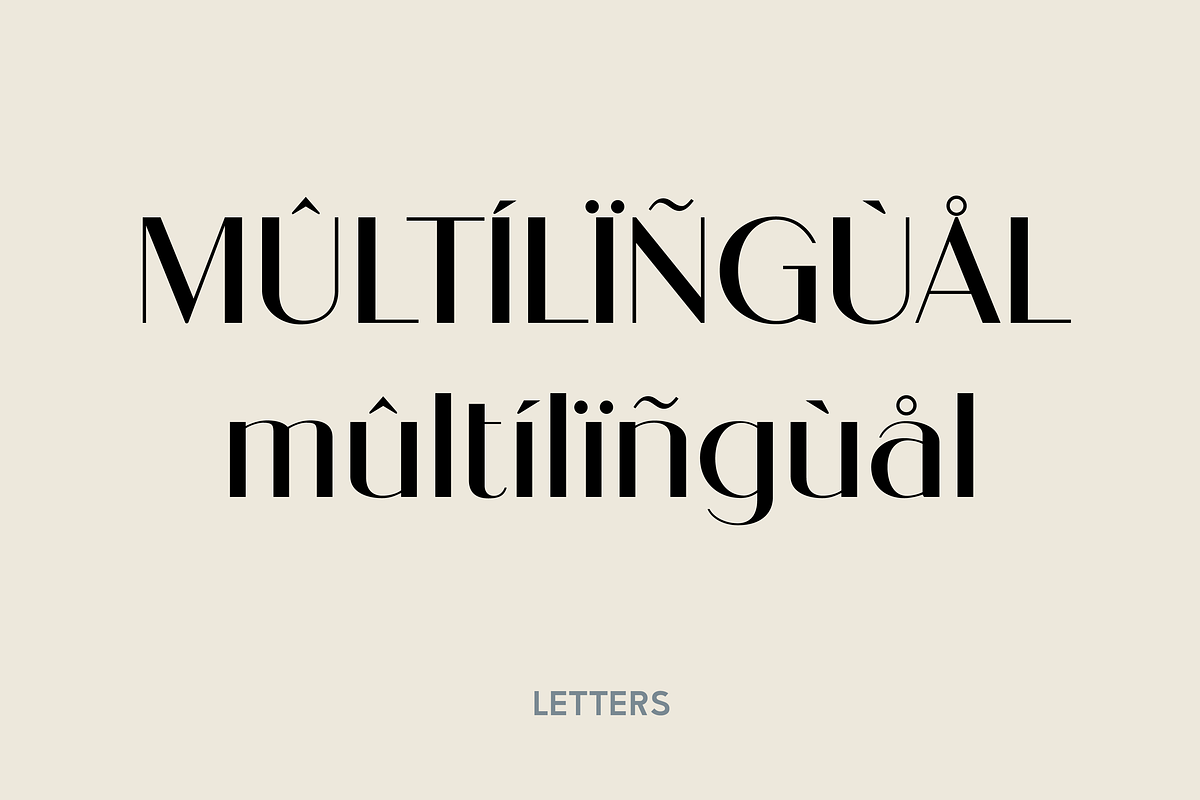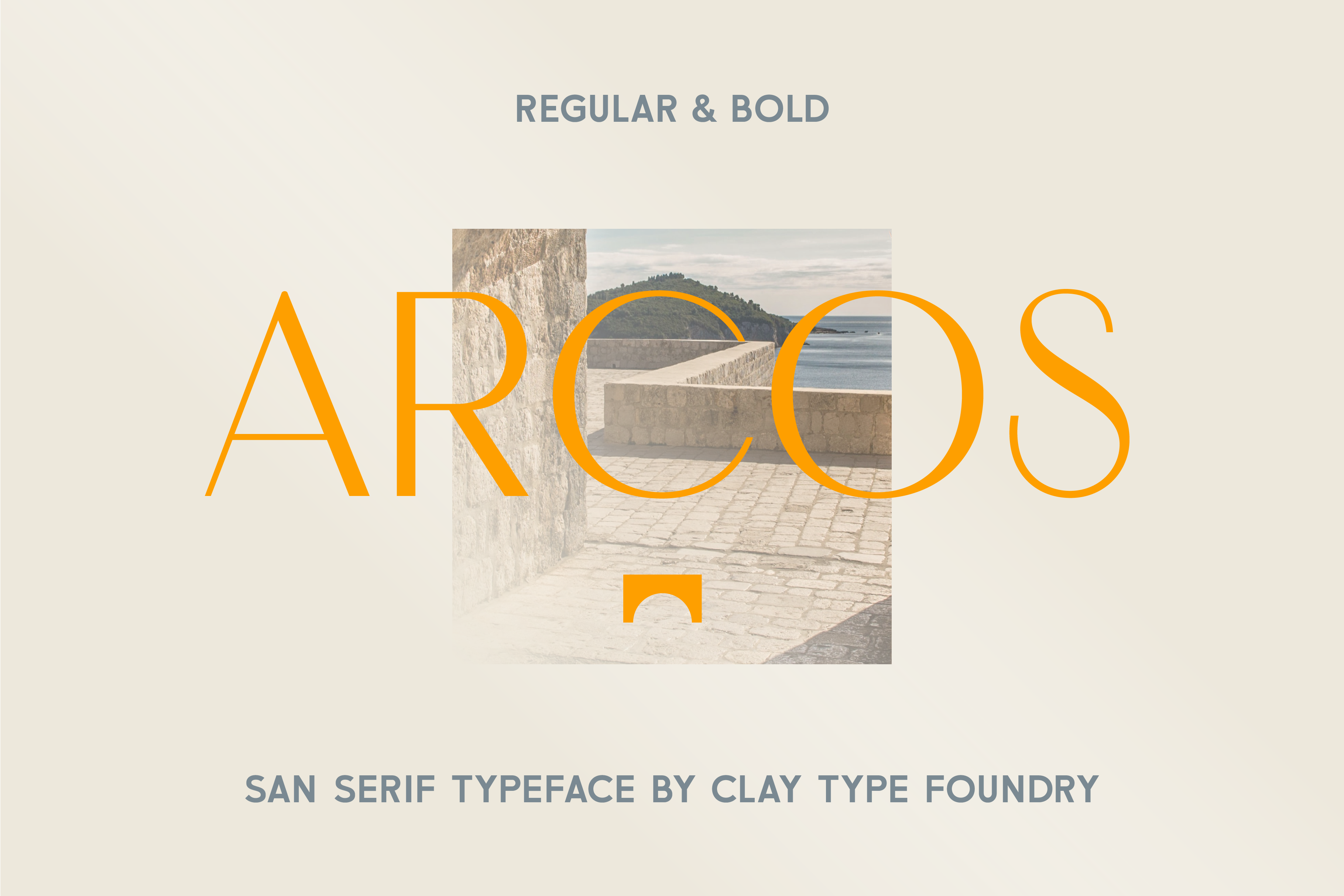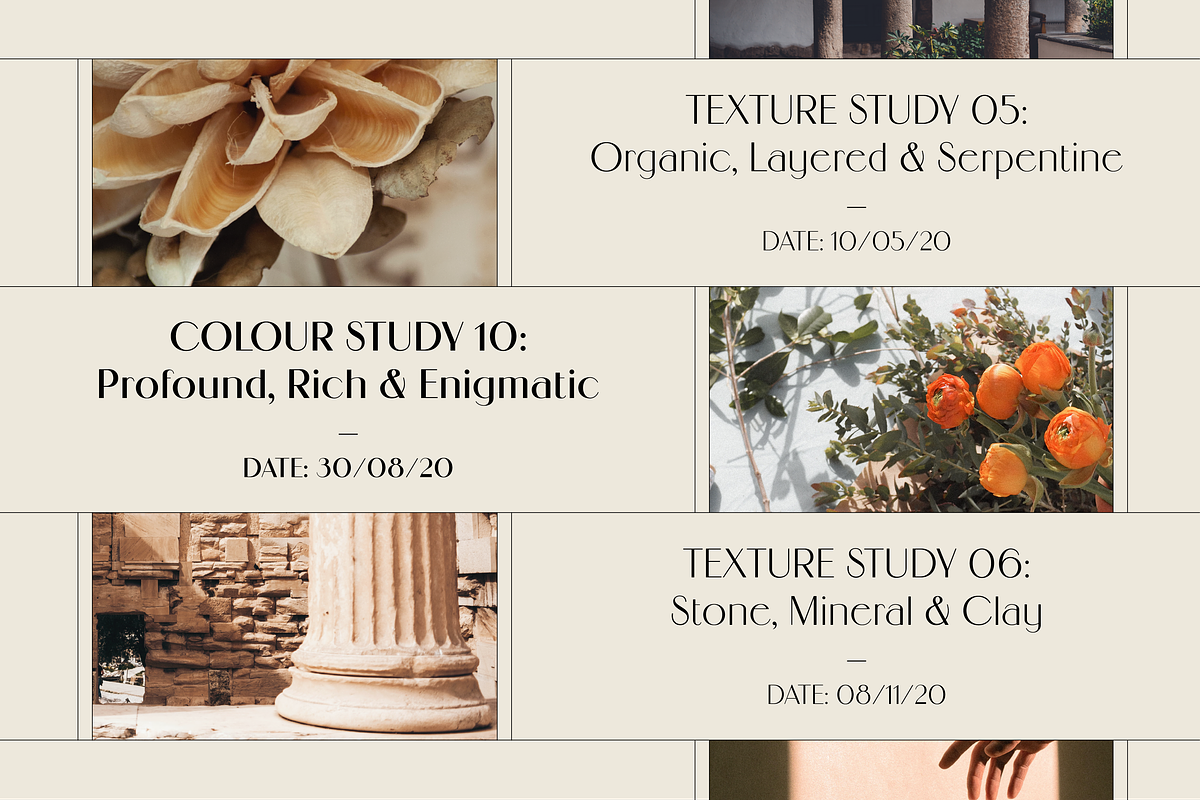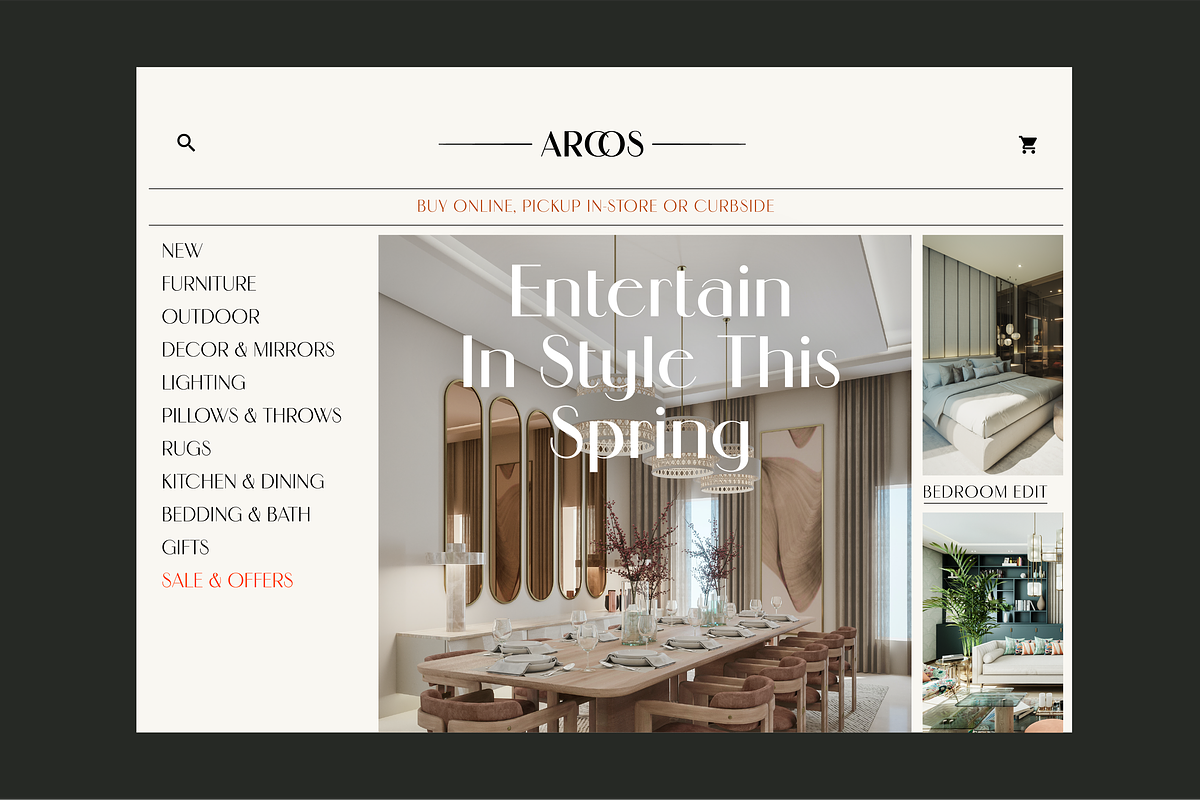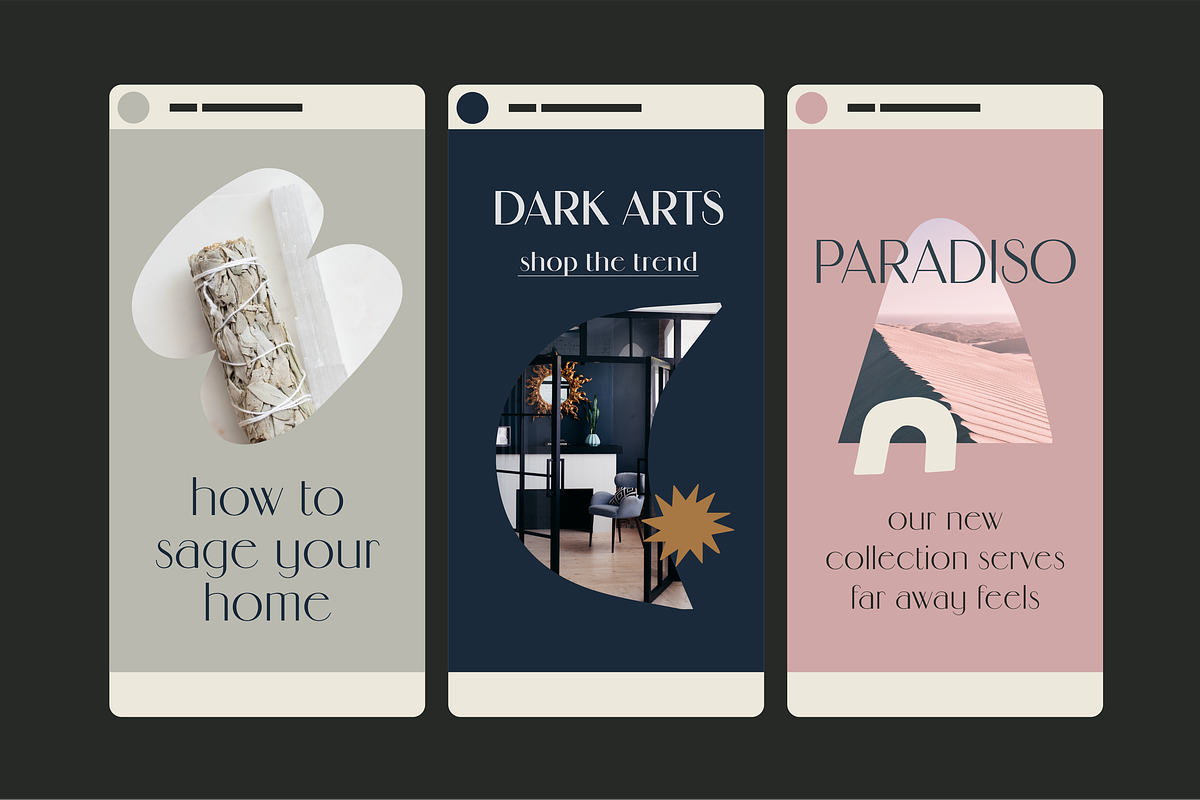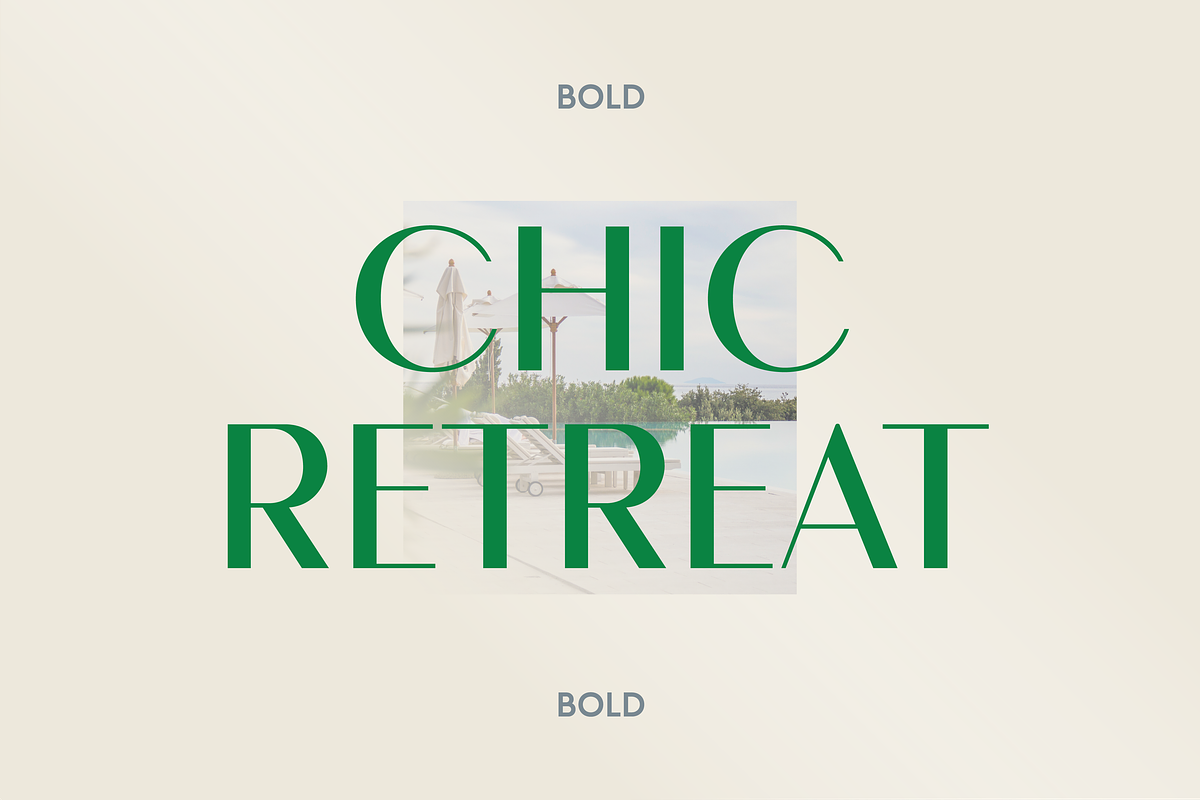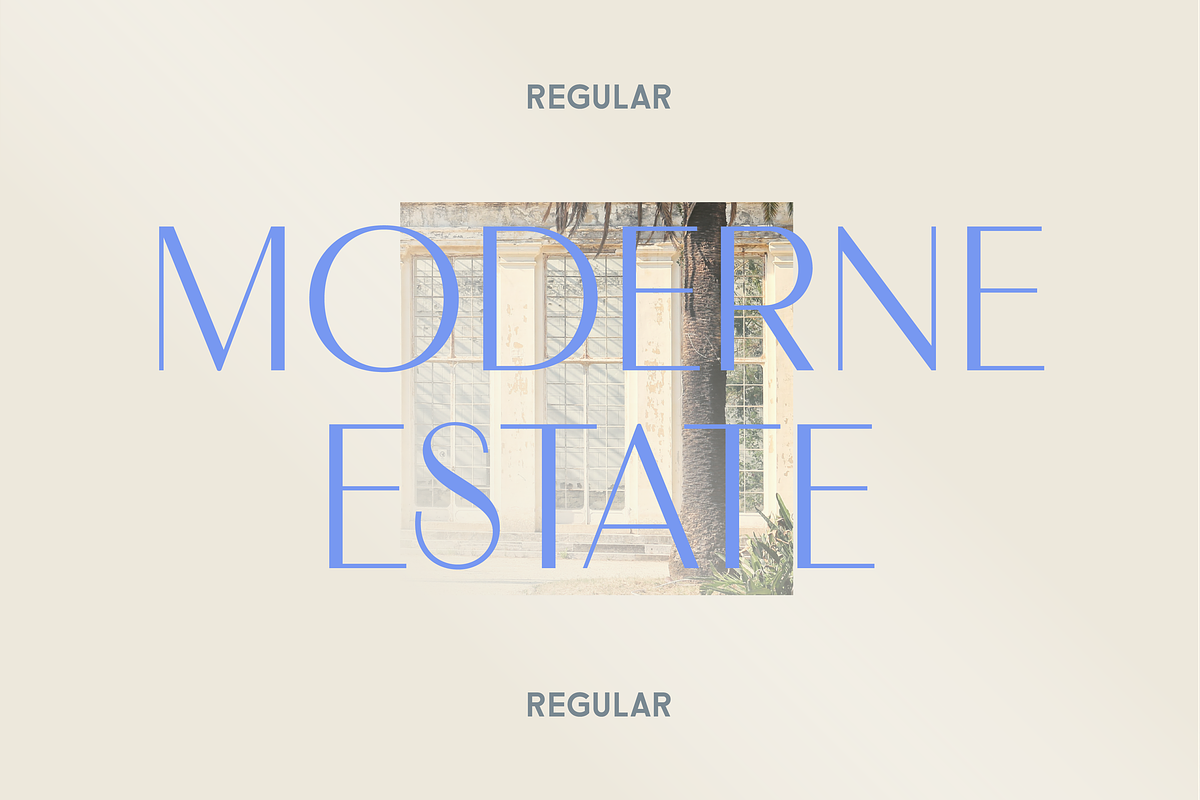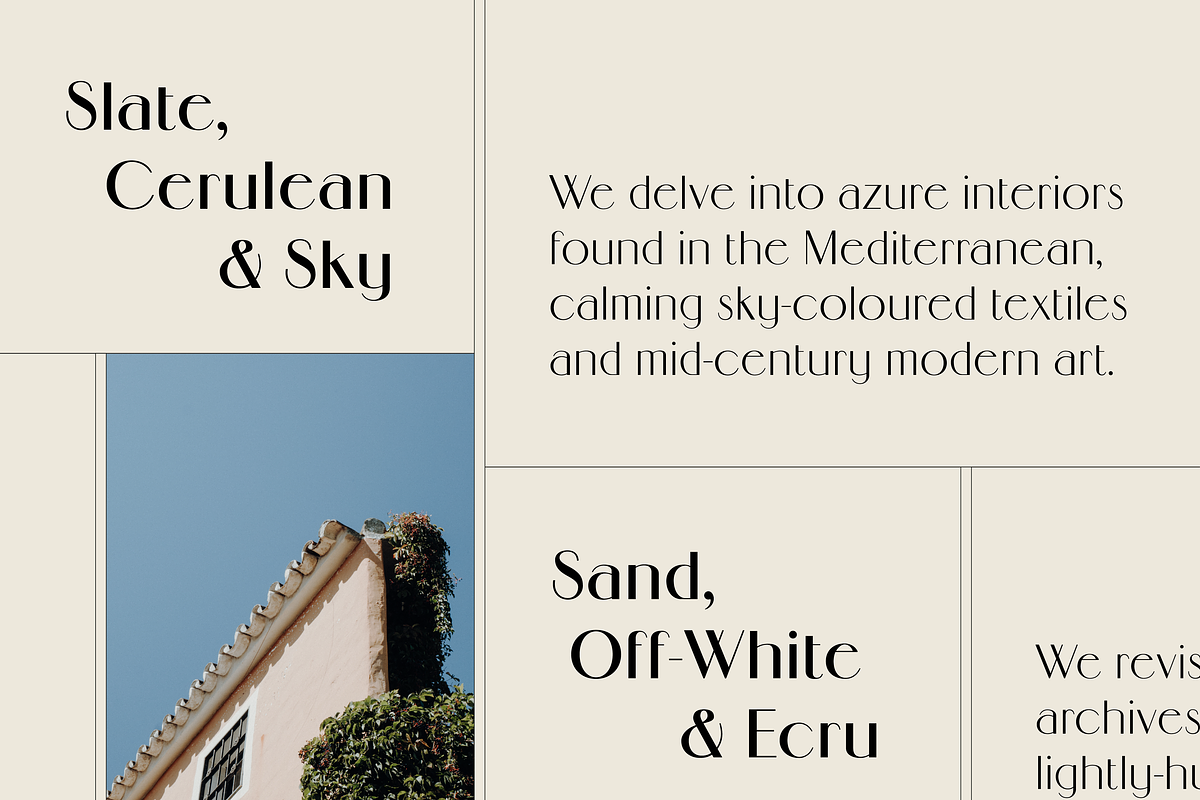
Arcos Modern Sans Serif Font
Arcos is a sophisticated, contemporary typeface with a dash of deco charm, a modern classic in two weights with upper and lowercase. Featuring playful contrasting strokes with elegant tapered terminals, it’s perfect for logos, headlines, invitations or any design where style and refinement is required.
- Upper and Lowercase
- 2 Weights